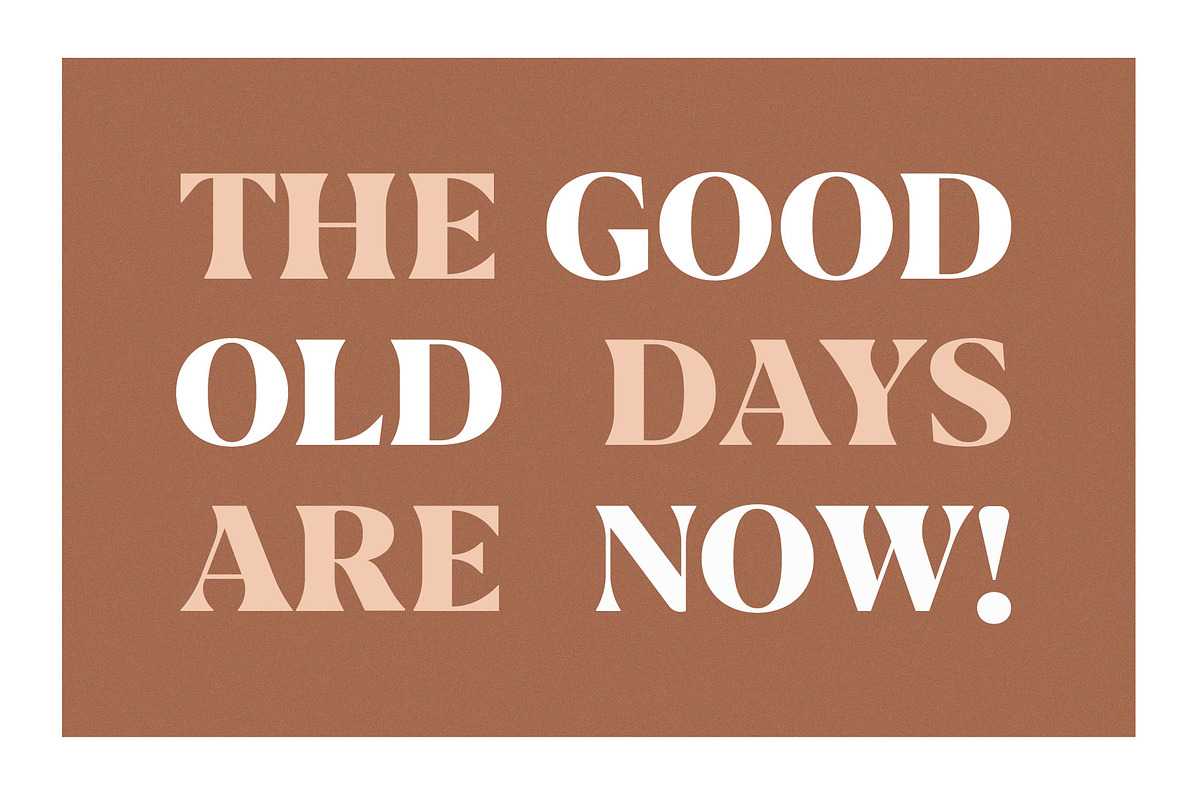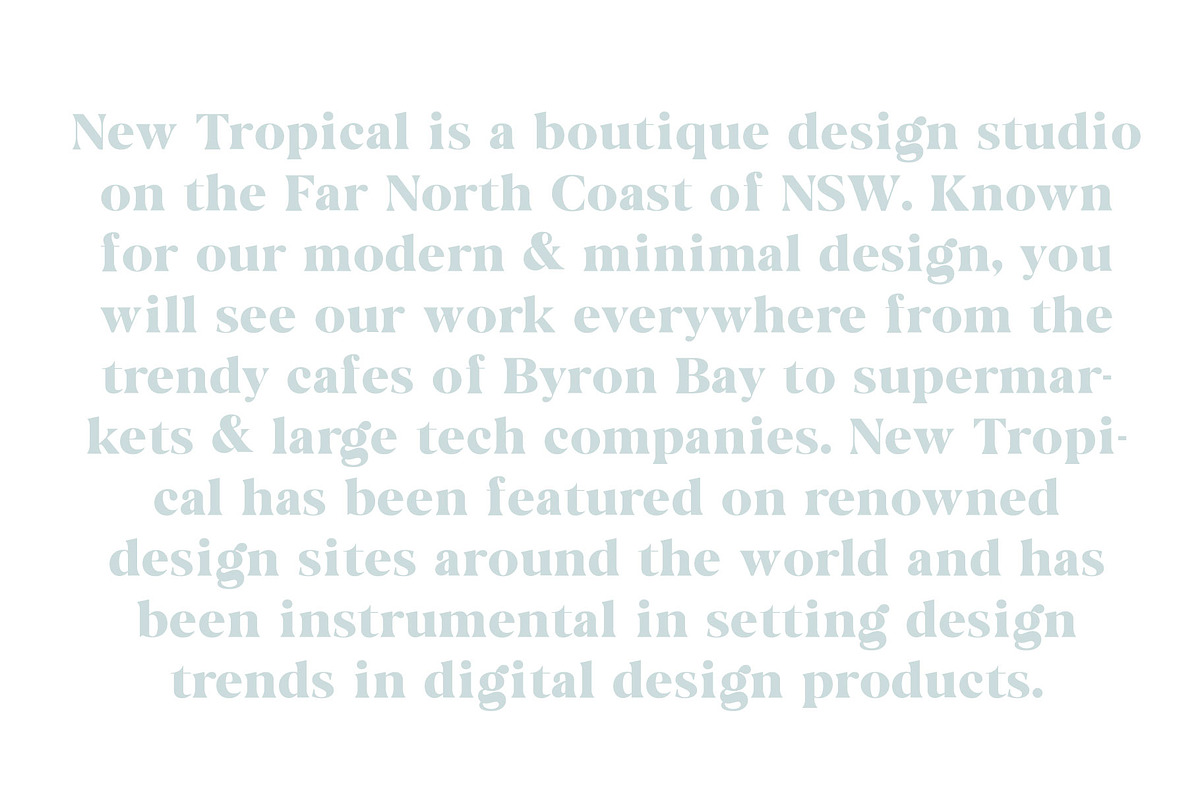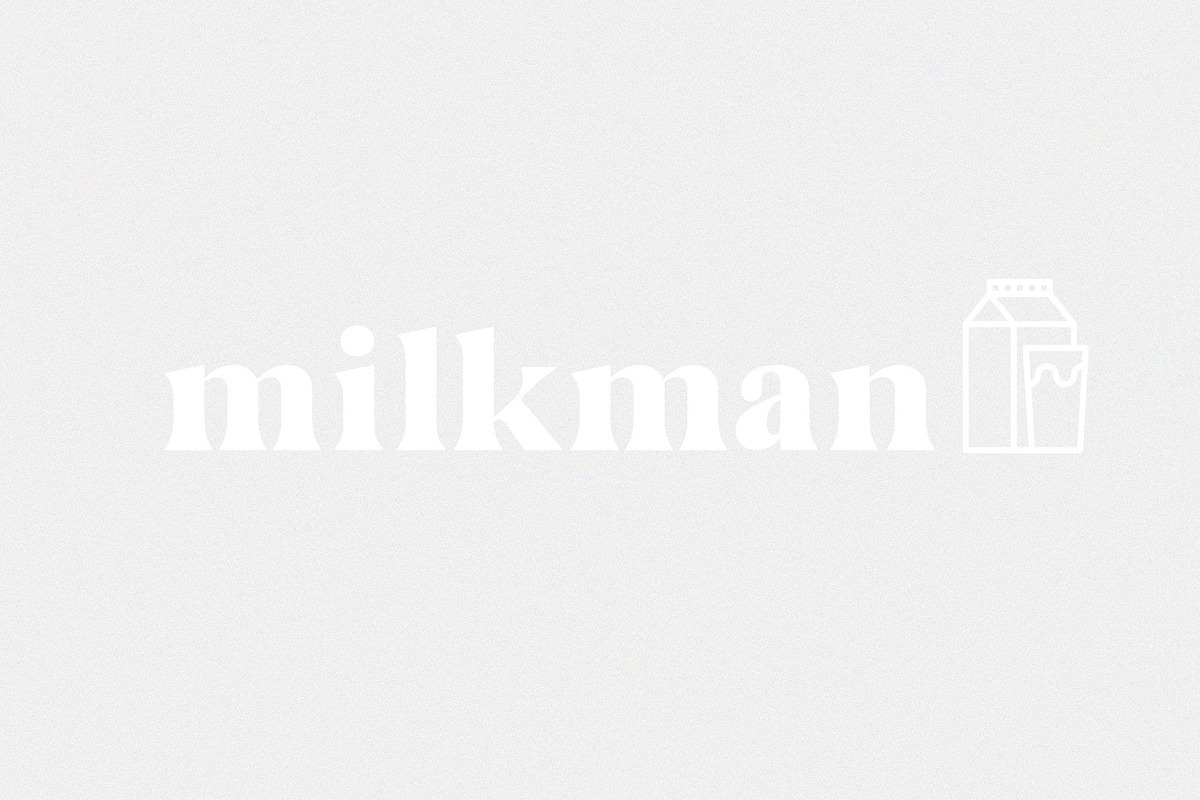
Avalanche - Serif Font
Avalanche is a classic Caslon style serif typeface. It's thick curves give a 70s groovy vibe with the serifs bringing it slightly back to traditional. This versatile font can be used for wordmark logos, mastheads, pull quotes & monograms showing both feminine and masculine qualities. Pairing script font is
With numbers and punctuation
Avalanche - Serif Font by Tropical Type fits naturally into Branding, posters, packaging, typography.